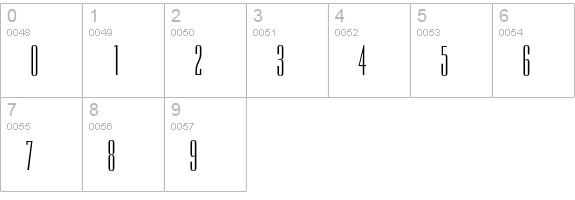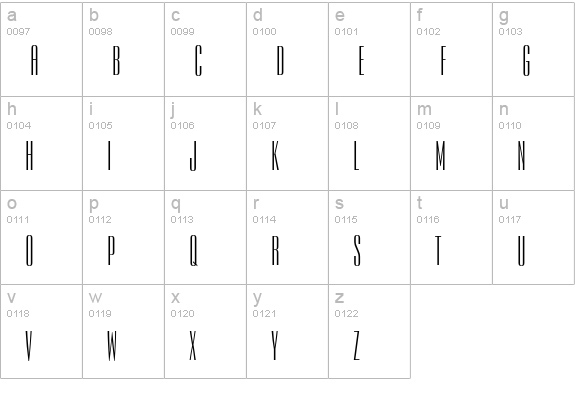
Empire Font Details
Empire font is a timeless and elegant typeface that exudes sophistication and class. With its sleek lines and refined curves, Empire font is perfect for adding a touch of luxury to any design project. Whether you're creating a logo, branding materials, or a wedding invitation, Empire font will elevate your design to the next level. What's even better is that Empire font is free to download at FontsMarket.com. This means you can access this exquisite font without any cost, making it a valuable addition to your font collection. Don't miss out on the opportunity to enhance your designs with the beauty and grace of Empire font - download it for free today!